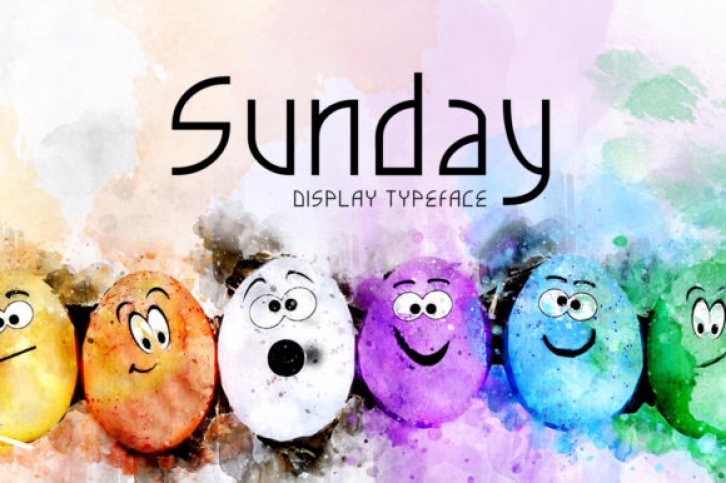
Sunday is a fun and dynamic display font with sharp edges. It is perfectly suited for stationery, logos, t-shirt, paper, print design, website header, photo frame, flyer, music cover, poster, image slider and much more.